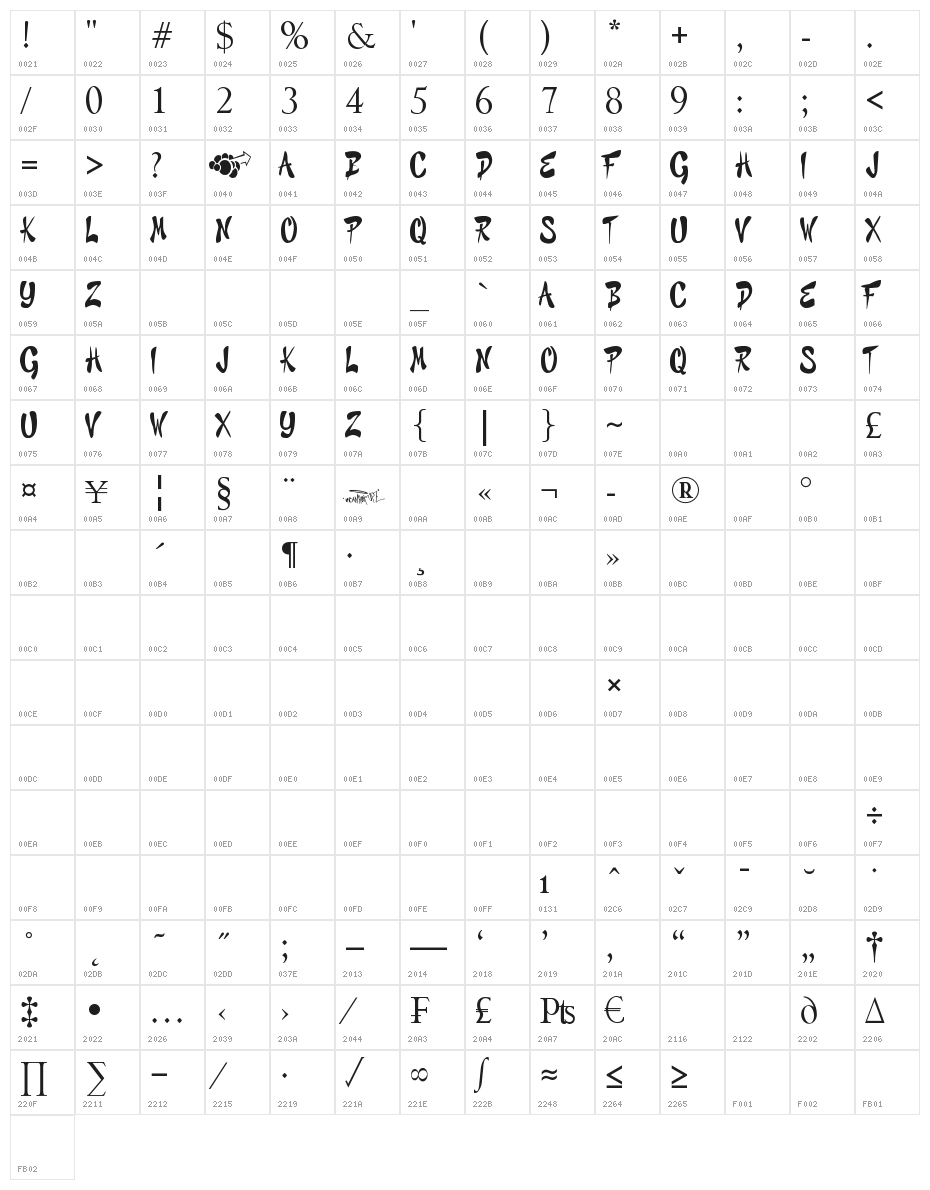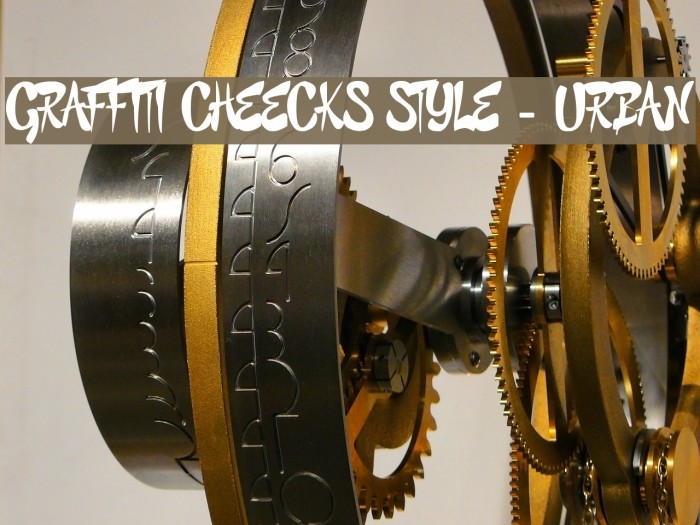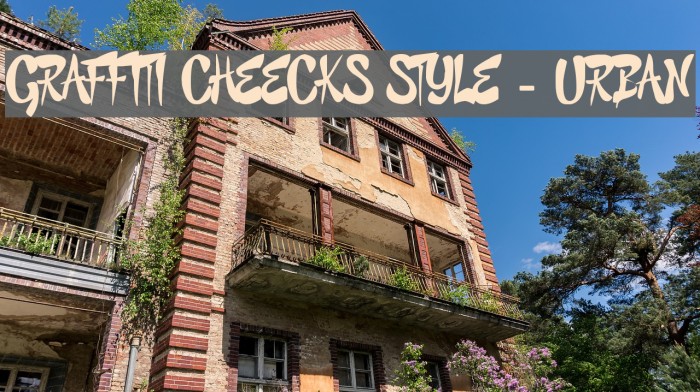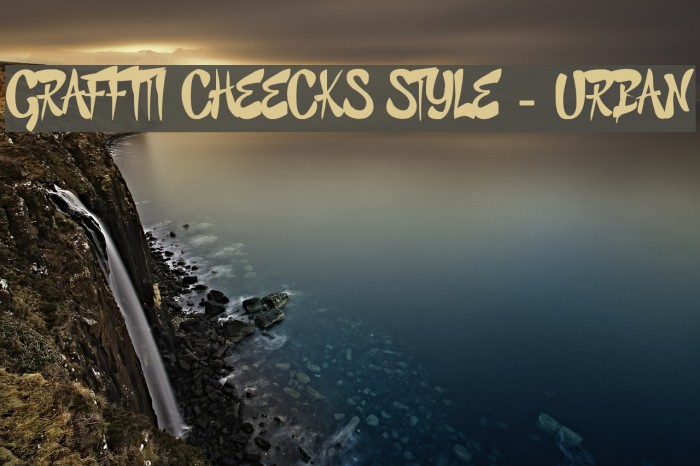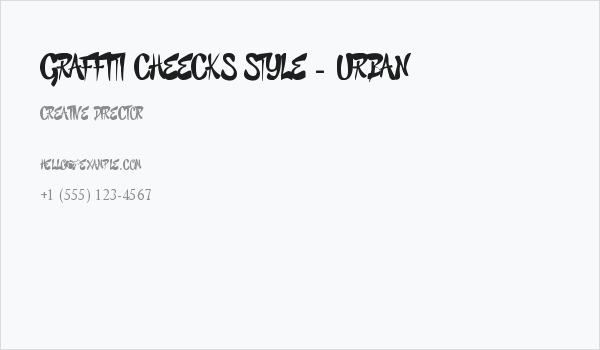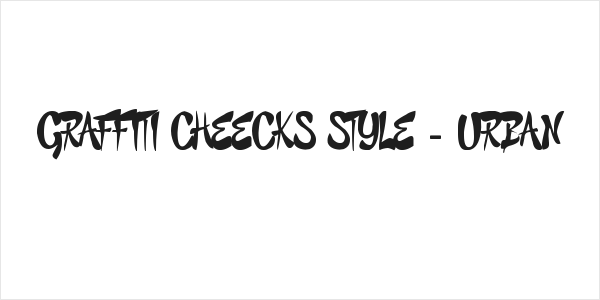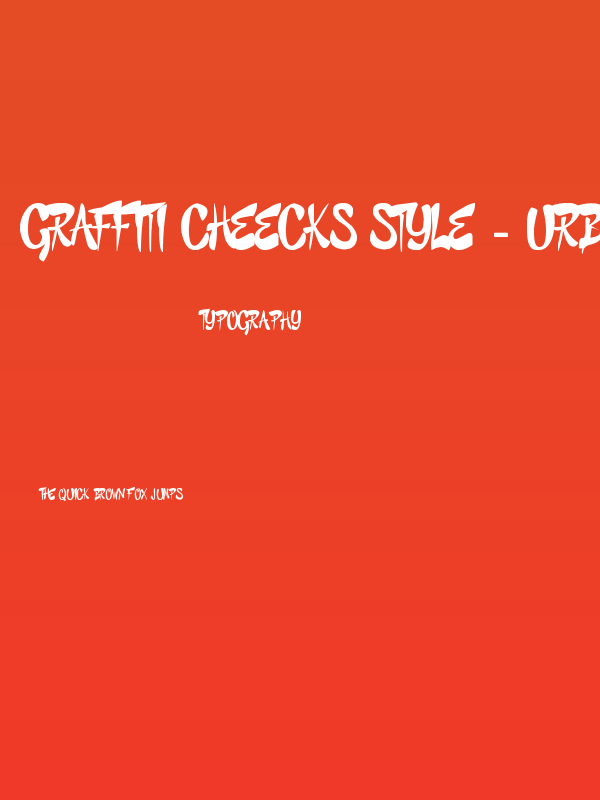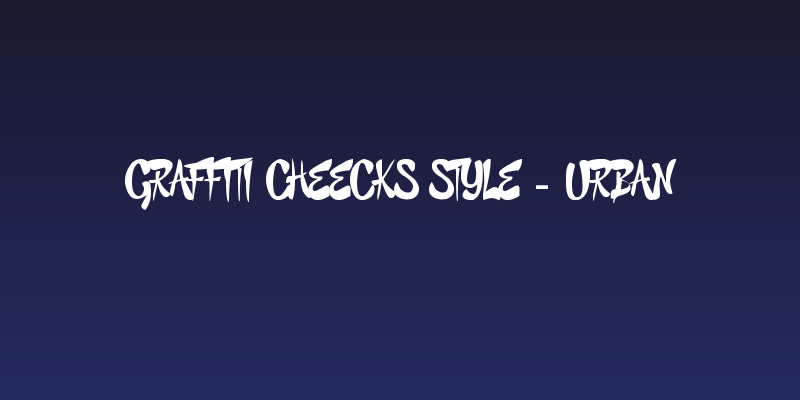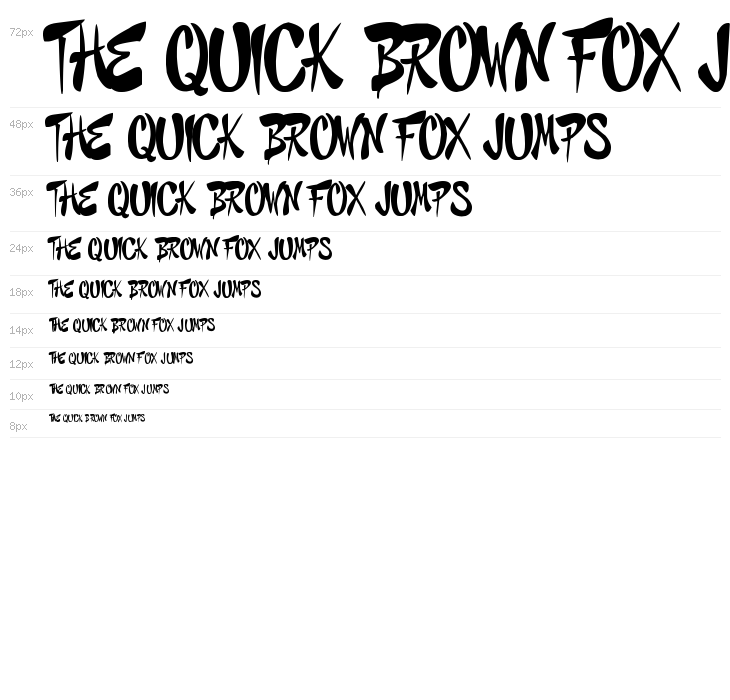
GRAFFITI CHEECKS STYLE - URBAN Font
GRAFFITI CHEECKS STYLE - URBAN Description
This font embodies a bold and dynamic graffiti style, characterized by its urban and edgy aesthetic. The letters are crafted with a sense of movement and flair, featuring sharp angles and exaggerated curves that mimic the fluidity of street art. The uppercase and lowercase letters maintain a consistent style, with a playful yet rebellious attitude. Numbers and special characters are equally expressive, adding to the overall cohesive look. This font is perfect for projects that aim to capture the essence of street culture and urban environments.
| Overall Style | Urban, Edgy, Graffiti |
| Proposed Projects | Ideal for street art posters, urban-themed branding, music album covers, and event flyers. |